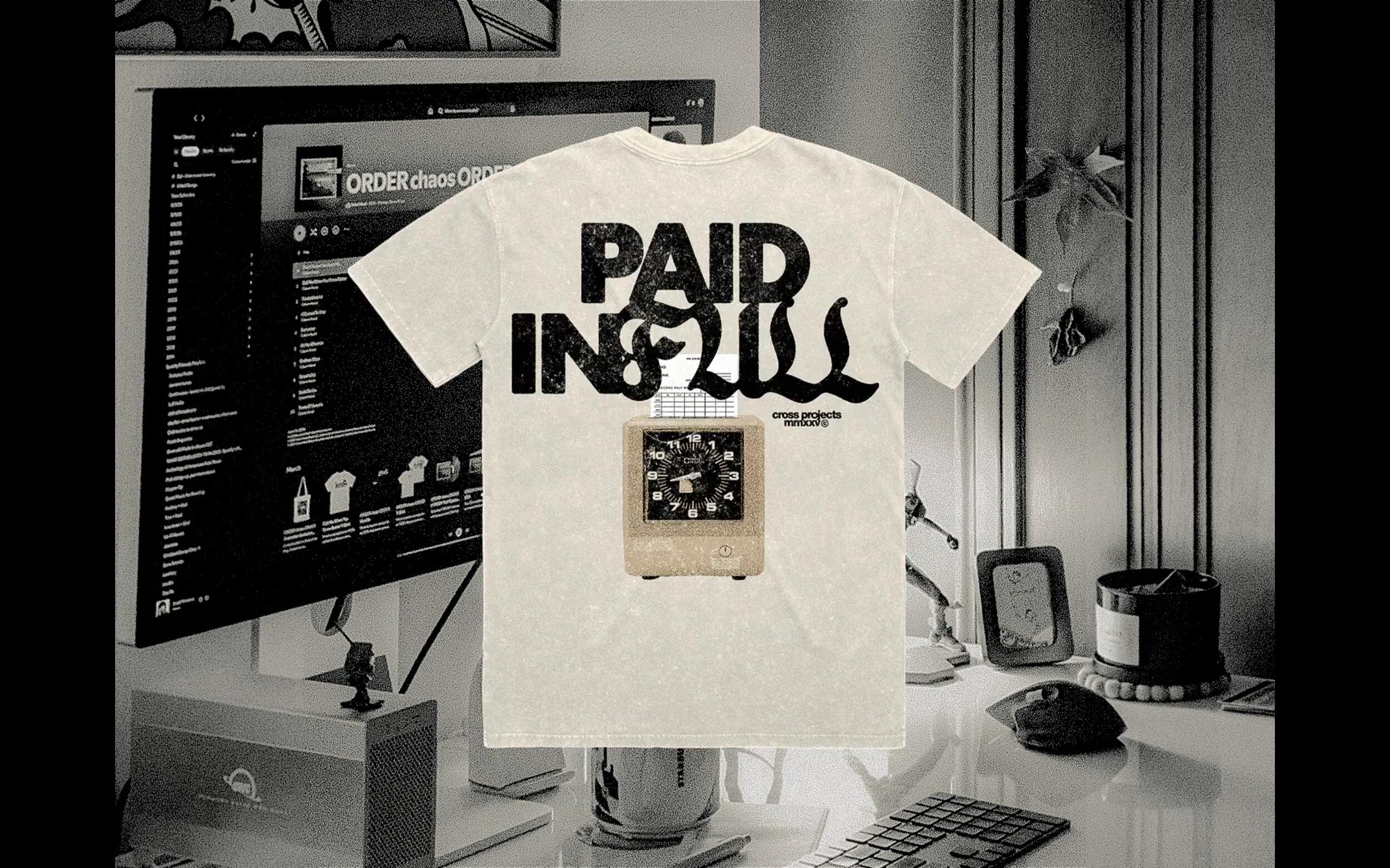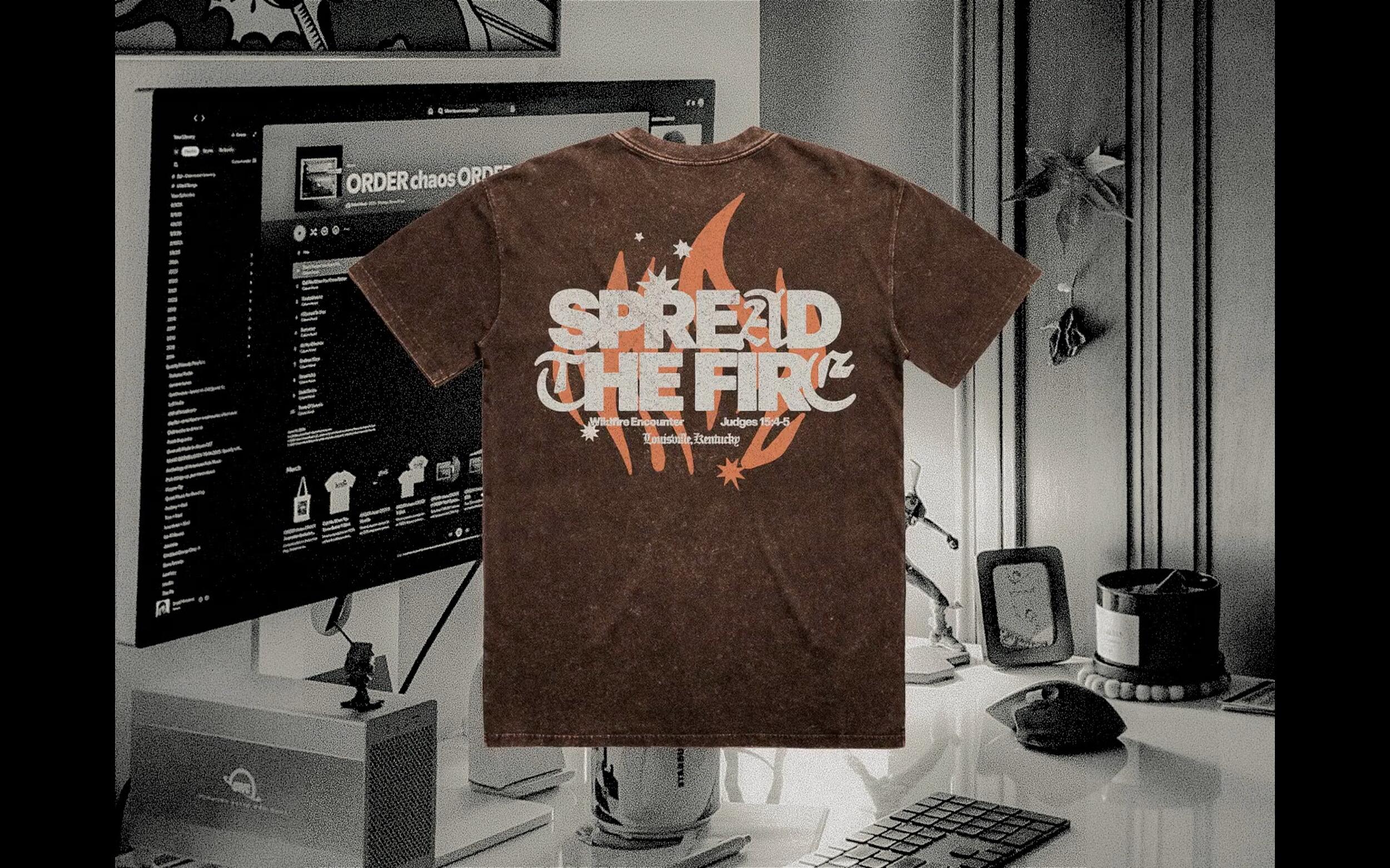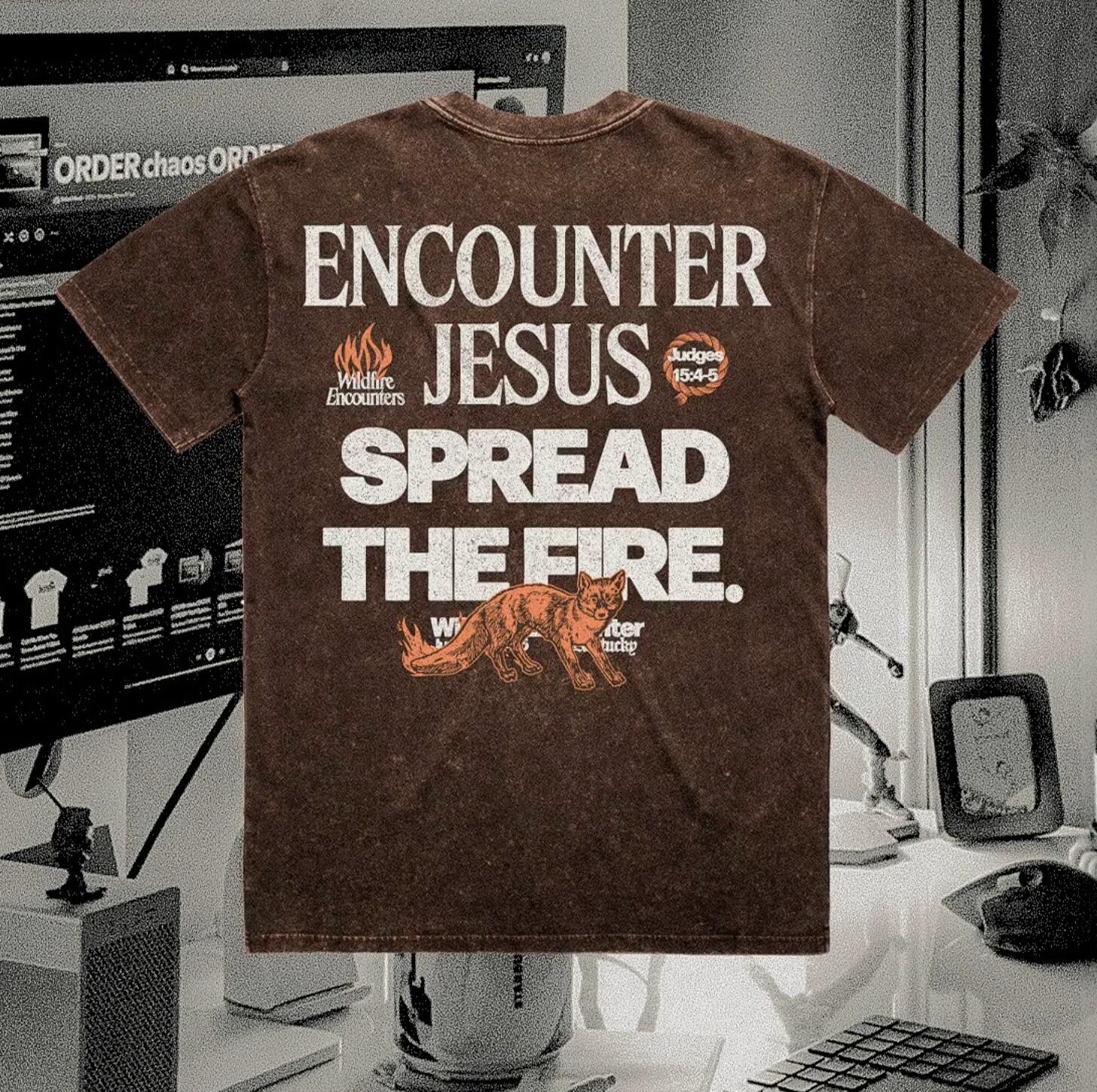
PAID IN FULL by Karl Nilsson Identification
I need help identifying both fonts in this PAID IN FULL t-shirt by Karl Nilsson (https://dribbble.com/KarlNilsson). I want to know the Sans Serif of "PAID IN" as well as the Serif of "FULL". I think the Sans serif is the same as another shirt of his (see second screenshot) if that helps.
Do you think he used Golos Text and rounded the edges?? What about the other Sans Serif letters in the "Spread the Fire" shirt? Do you think it's the same as the "PAID IN" ones?
I'm attaching another shirt that says "Spread the Fire" in the same font (I believe).